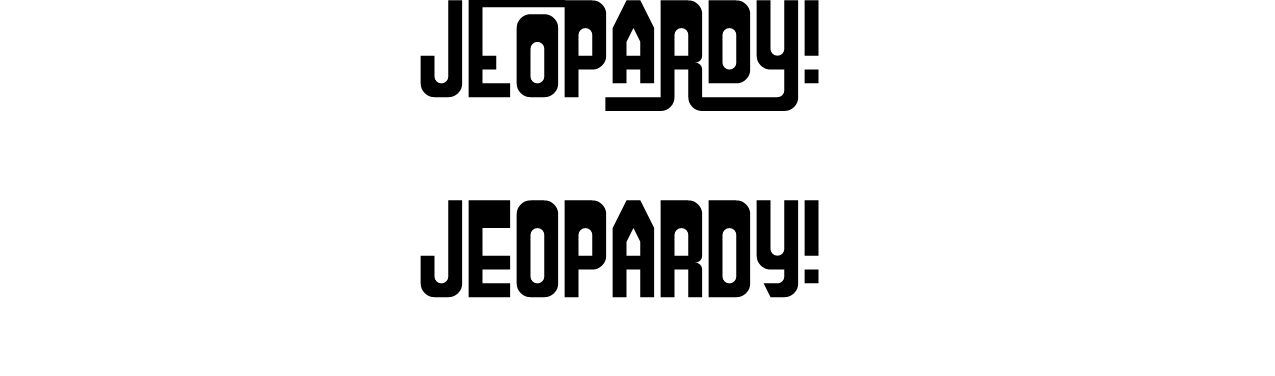
Use the ¿ and ¡ to tie the letters
17763 shared glyphs? Wonderful!
ca ligature
random ligature example
the logo i was trying to replicate
how to type ligature jeopardy: JÉoPÃéĂñ!
ligatures vs original
@ACoolShapeFontMaker what happened with that e on top at the 2:33 comment
@digitalio idk but the top tie can´t look like that
probably got cutoff :/